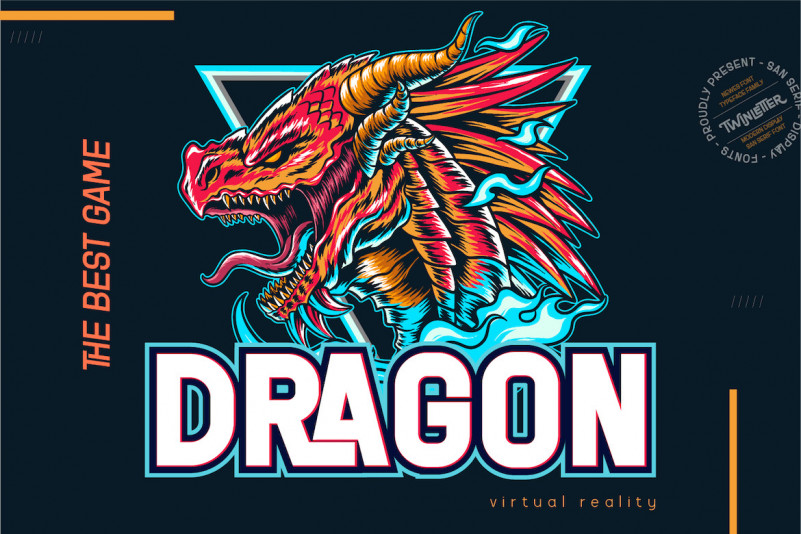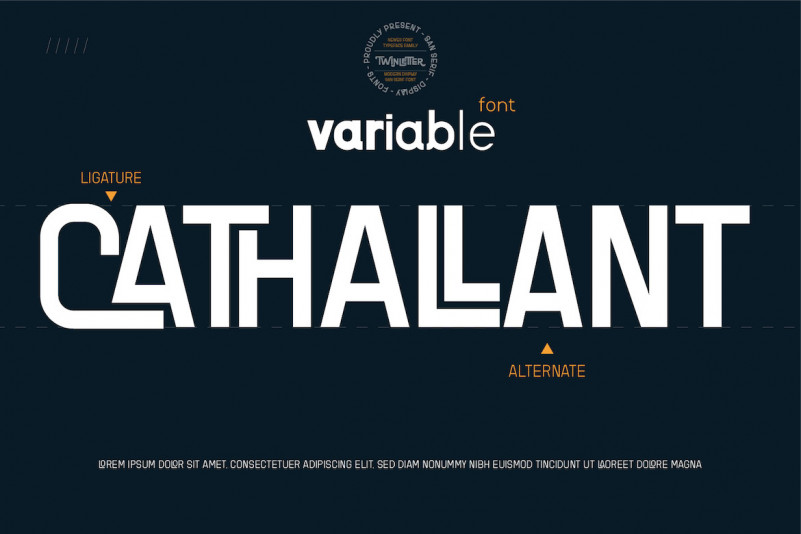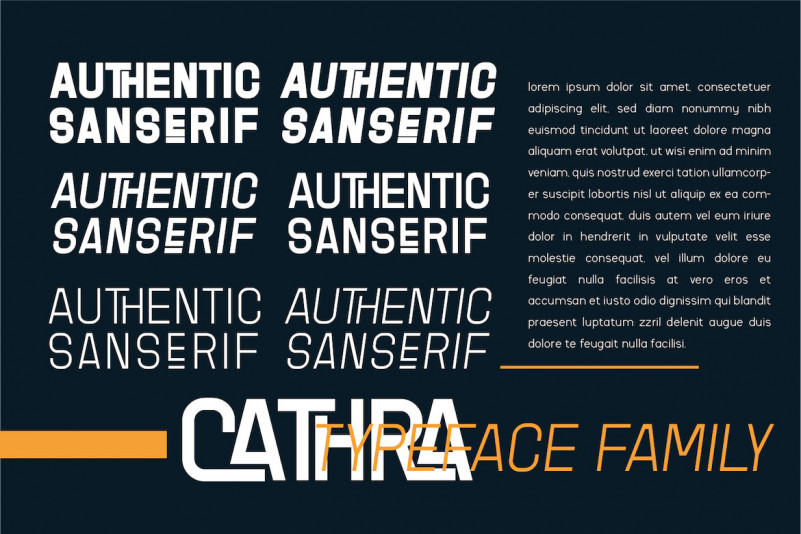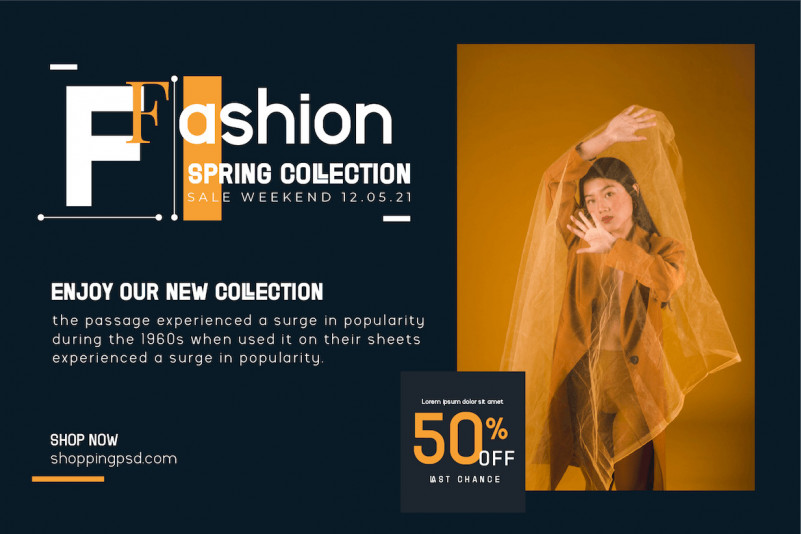
Cathra Font
Cathra Sans Serif Font
A font that is enriched with a variable font family for the needs of words, as well as text, is also equipped with beautiful ligatures and alternates on certain letters.
This font is perfect for a wide variety of design projects, sporting events, branding, banners, posters, movie titles, food and beverage, technology, quotes, clothing, logotypes, and more.
Of course, your various design projects will be perfect and amazing if you use this font because this font comes with a font family, both for titles and subtitles and sentence text, start using our fonts for your amazing projects.